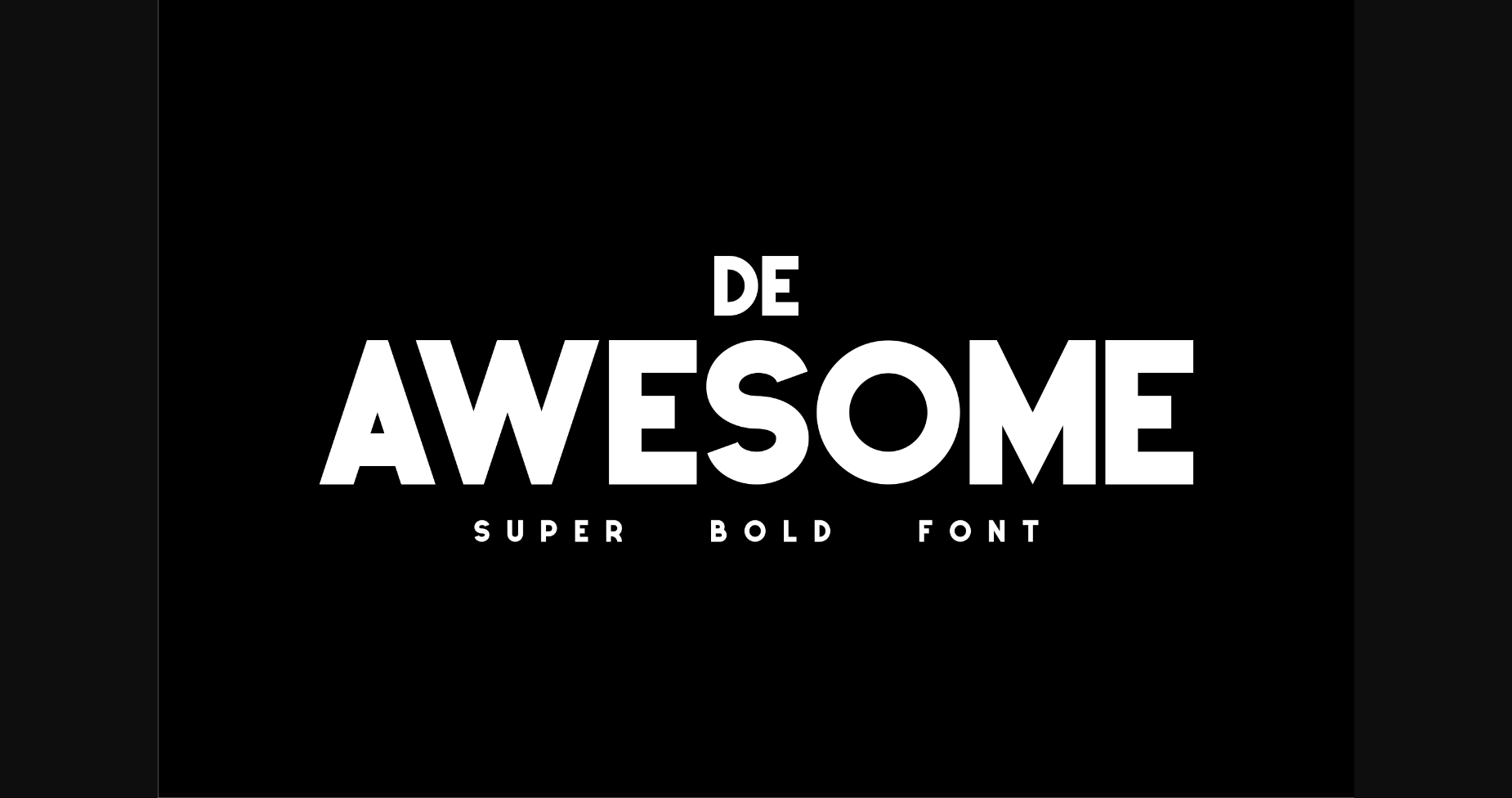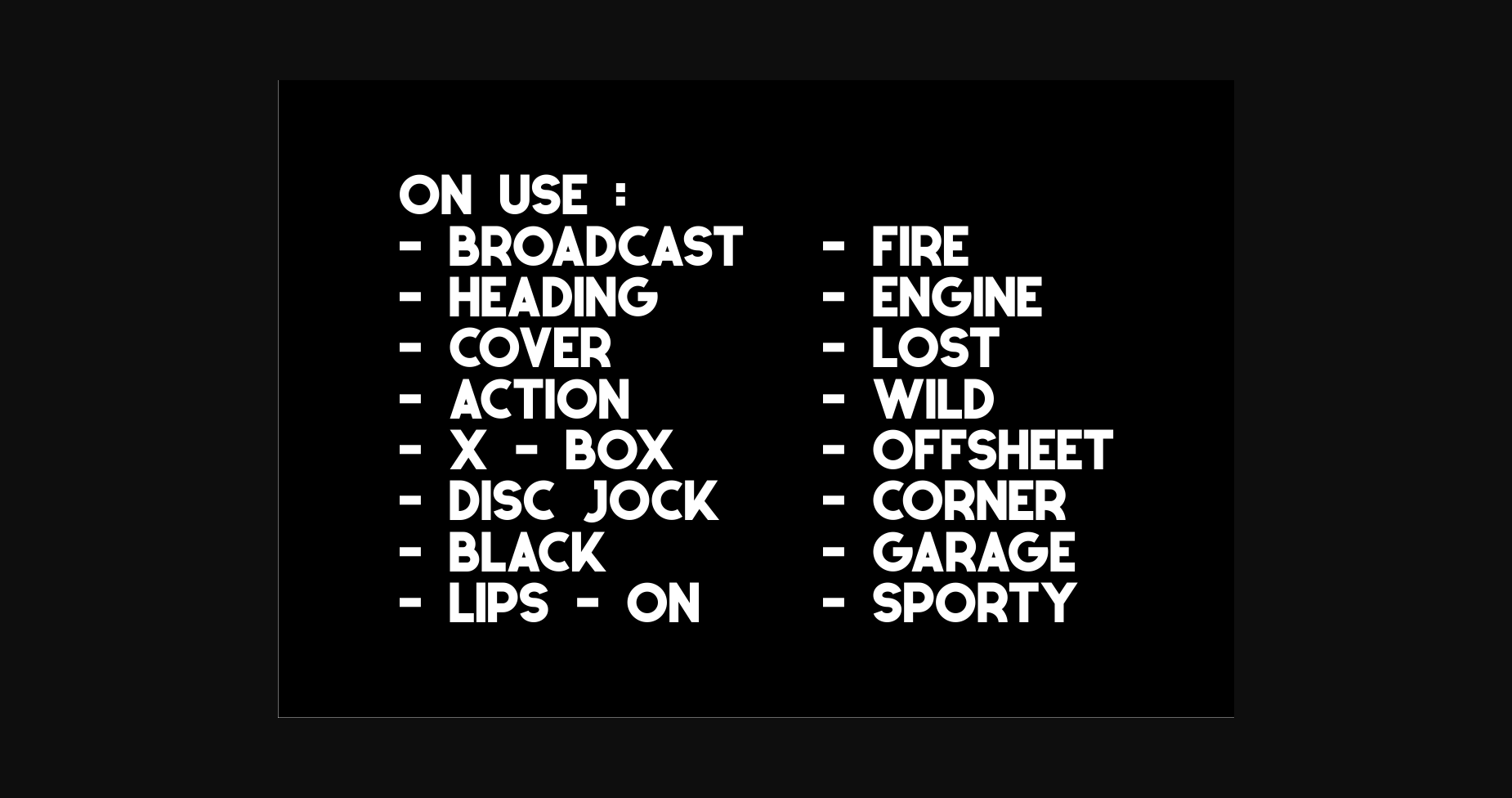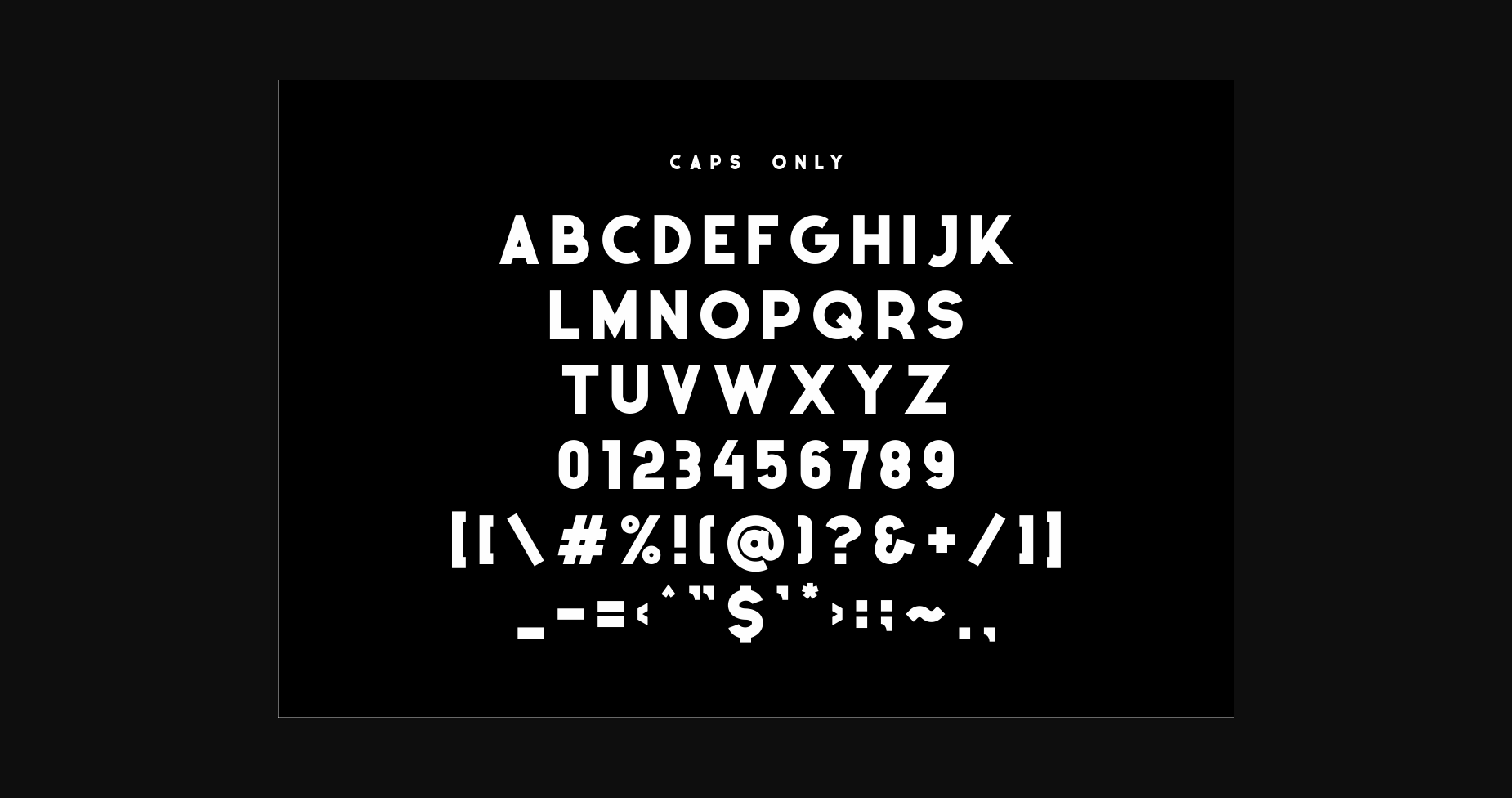
HomeSans Serif FontsDe Awesome Font Sans Serif Fonts De Awesome Font FacebookXPinterestWhatsApp 1 of 5 ... De Awesome Font Poster 2... De Awesome Font Poster 3... De Awesome Font Poster 4... De Awesome Font Poster 5... About De Awesome Font De Awesome is a cool, strong, and bold sans serif font. Add it confidently to your design projects and you will be impressed by the generated outcome! DOWNLOAD NOW People also explored Terancio Font Prilly Font Delirium Font Clackulator Font Nextart Outline Black Font Lovina Script Font Chalk Dash Font Misterpak Font Fasttelyo Font 392 0 TagsDe Awesome Font Previous articleMulti Gun FontNext articleBeillia Font LEAVE A REPLY Cancel reply Comment: Please enter your comment! Name:* Please enter your name here Email:* You have entered an incorrect email address! Please enter your email address here Website: Save my name, email, and website in this browser for the next time I comment. Personal Use Free Open Heart Personal Use Free Read more about this font Baby Cute Personal Use Free Read more about this font Coolvetica Font Personal Use Free Read more about this font Kaylafiz Personal Use Free Read more about this font BLOG 5 Fonts That Will Dominate Design Trends in 2026 5 Fonts for 2026 That Will Dominate Design Trends Typography plays a critical role in visual communication, and as we look ahead to 2026, it’s... Where to Buy American Fonts Online in 2024 Top 7 Google Fonts Alternatives for Faster and Privacy-Friendly Web Design (2025) How to Cut Any Font on Cricut: Convert a Font to SVG (Free)